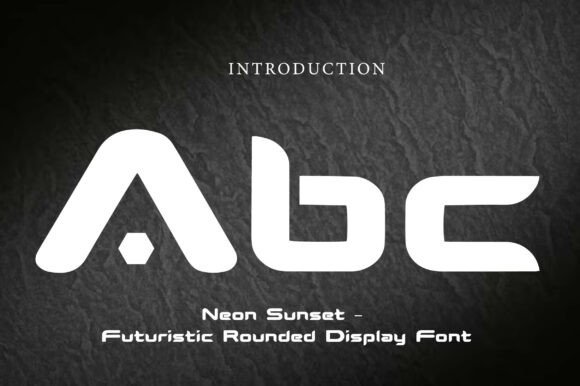
Introduction to Neon Sunset Font Font
Fonts play a crucial role in design, and the Neon Sunset Font font is a typeface that brings both character and versatility to any project. Whether you’re working on a branding project, a website, or a print design, the Neon Sunset Font font offers a unique style that can elevate your work.
Unveiling Neon Sunset, a contemporary rounded display font with a futuristic allure.
This sleek typeface imparts an innovative, crisp, and advanced characterto your compositions, a testament to the digital age that is both stunning and attention-grabbing From gaming graphics to tech branding; from thumbnails to posters; and from logos to social media visuals, Neon Sunset is designed to make your text befittingly sharp, chic, and unforgettable.
Key Features of Neon Sunset Font Font
Why Choose Neon Sunset Font Font?
The Neon Sunset Font font is more than just a typeface – it’s a design tool that helps you communicate your message with style and clarity. Its unique character set and versatile design make it suitable for a wide range of applications, from elegant invitations to bold headlines.
With its carefully crafted letterforms and balanced proportions, the Neon Sunset Font font ensures readability and visual appeal across all mediums.
What makes Neon Sunset Font font special?
The Neon Sunset Font font stands out with its unique design, exceptional readability, and versatility across various design applications.